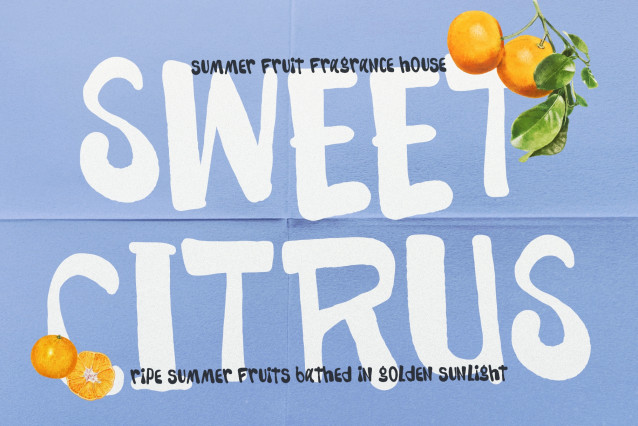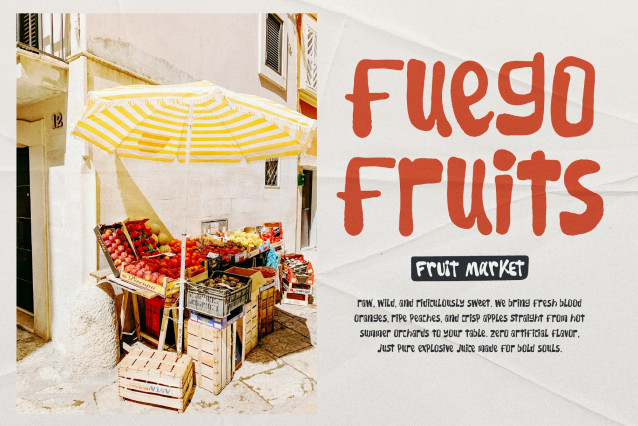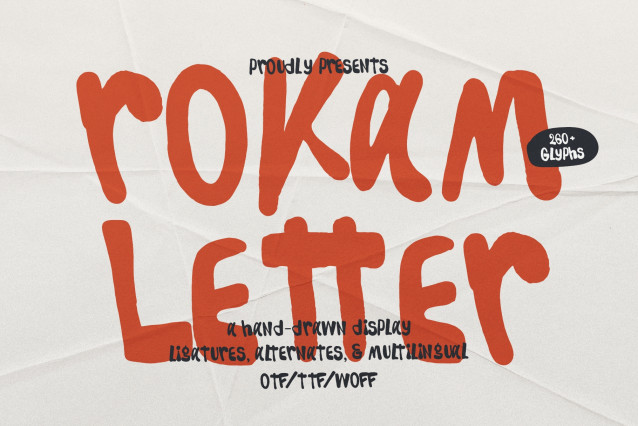
Rokam Letter Hand Drawn Display Font
Rokam Letter Hand Drawn Display, from Gracetypestudio, suitable for any projects such as: logos, branding projects, homeware designs, product packaging, mugs, quotes, posters, shopping bags, t-shirts, book covers, name card, invitation cards, greeting cards, label, photography, watermark, special events, and all your other lovely projects that need a Hand Drawn Font taste.